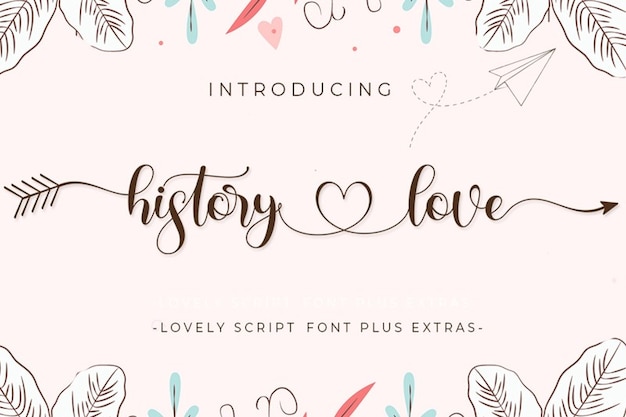
History Love Font
History Love font is pure elegance dipped in love—it's like handwritten romance in every stroke. With fancy curves and sophisticated lines, it's the epitome of graceful lettering. Each character whispers love notes, blending sophistication with heartfelt emotions. It's the font that turns words into a love letter, adding a touch of fancy charm to your design with an elegant, heartfelt style.